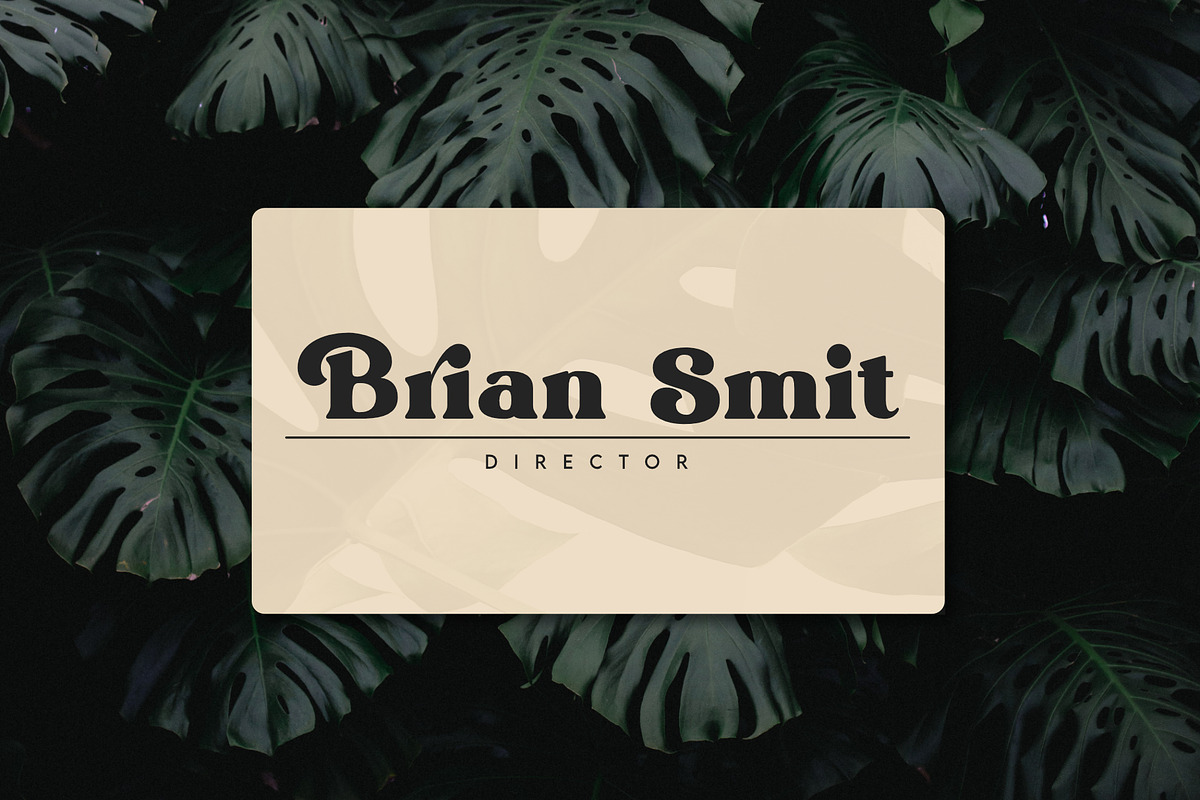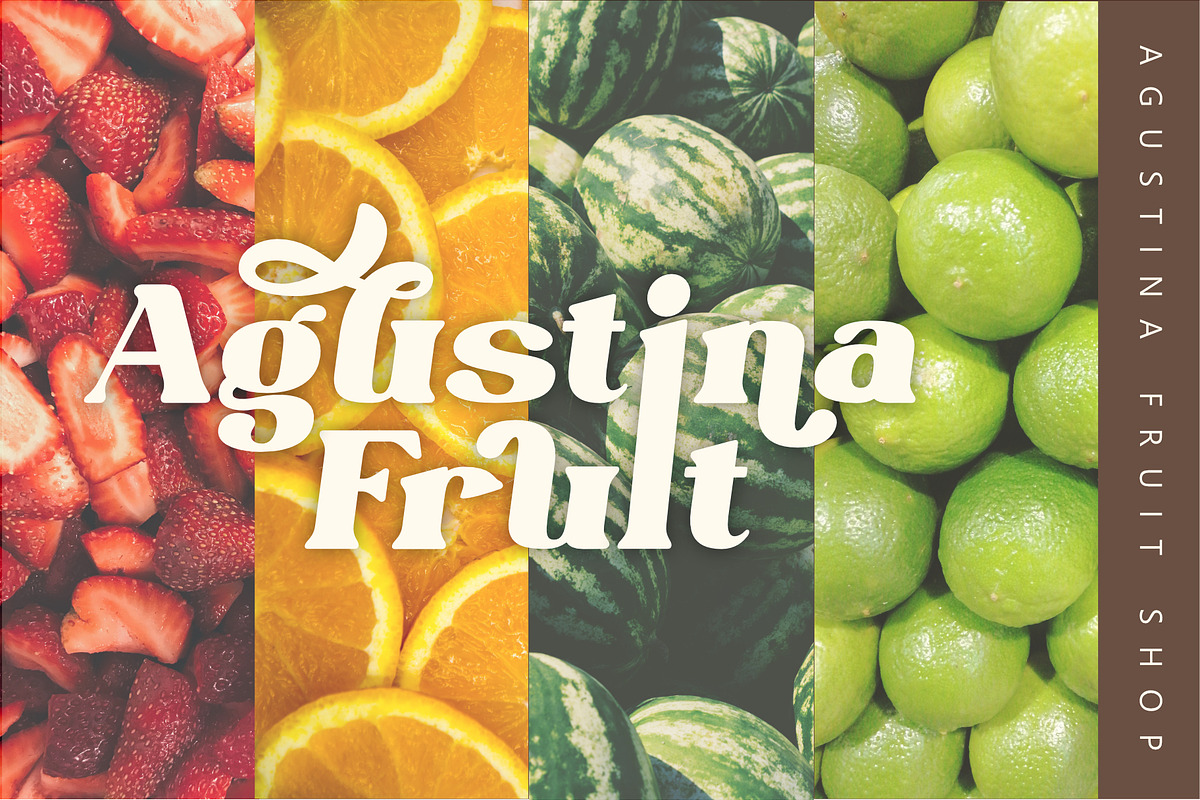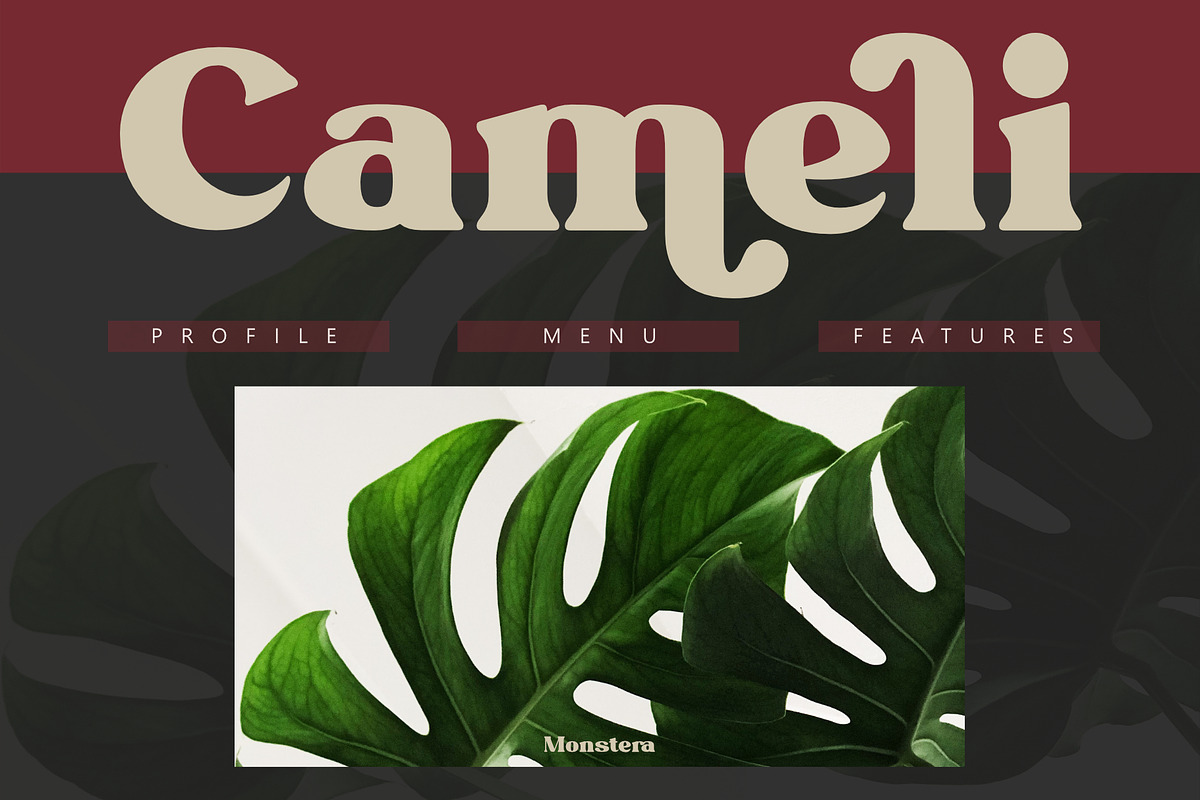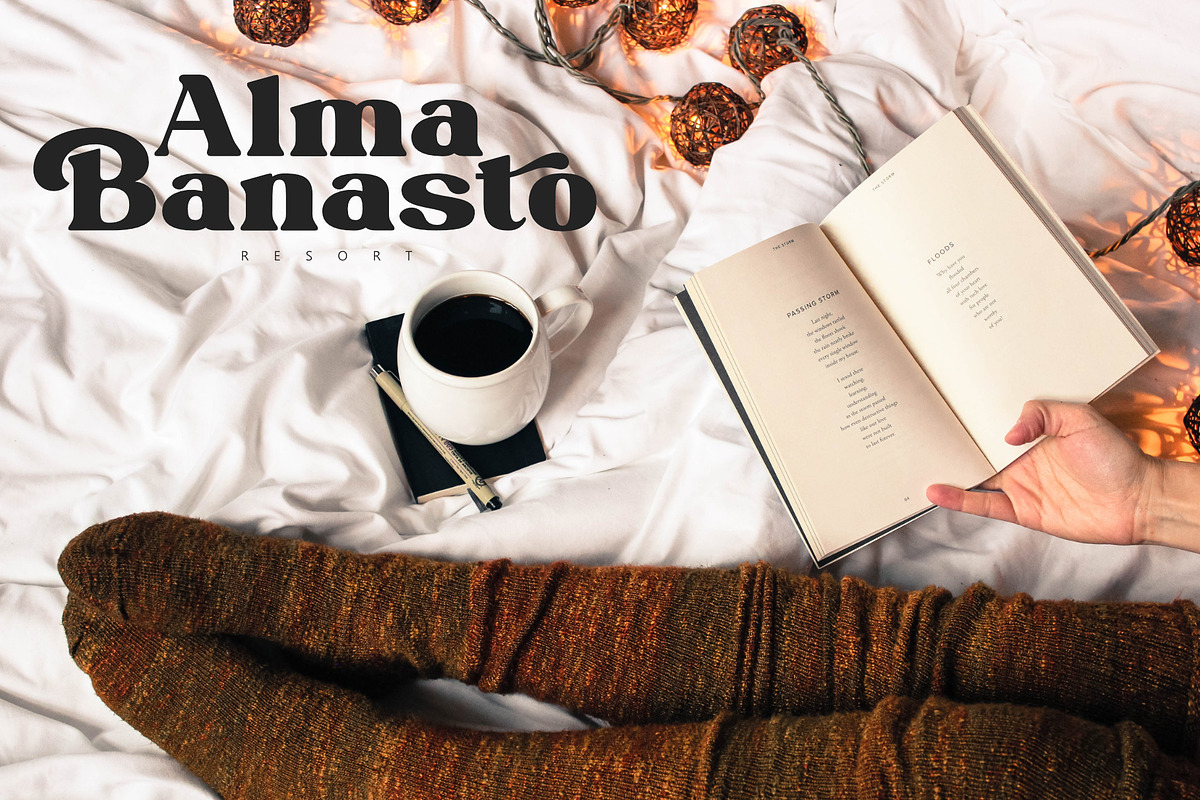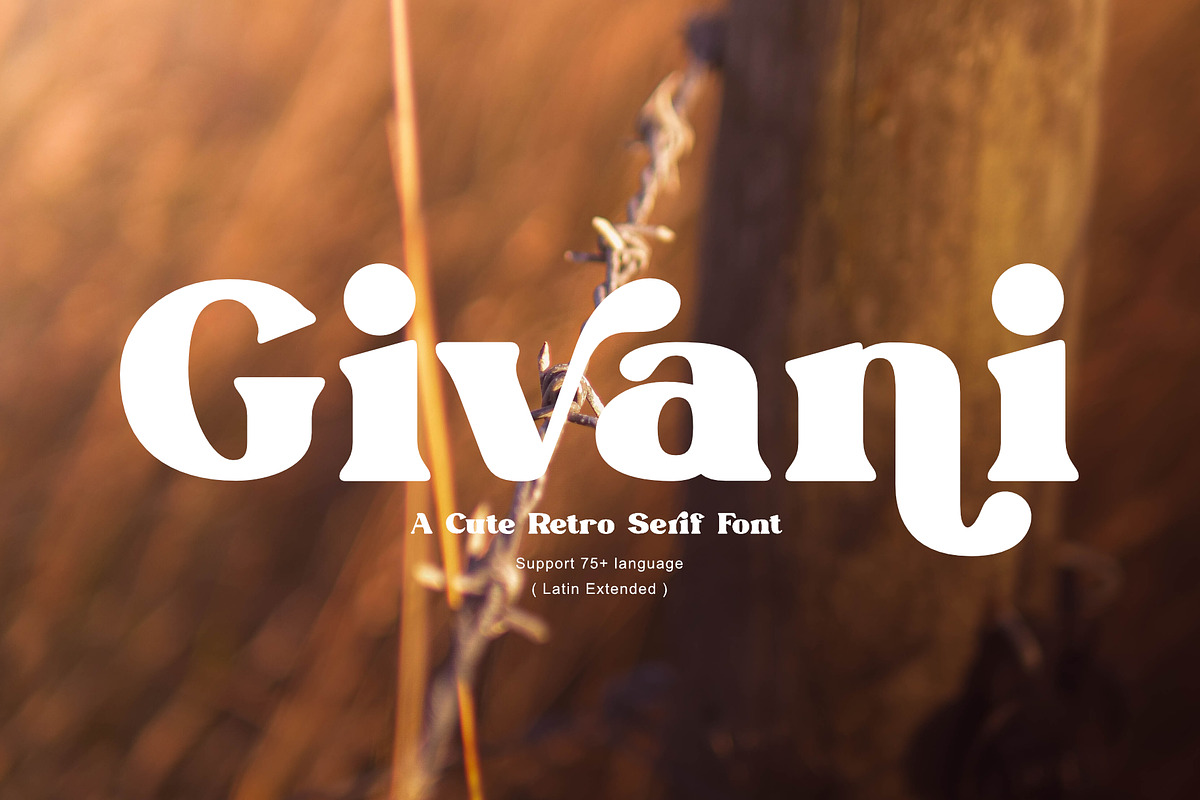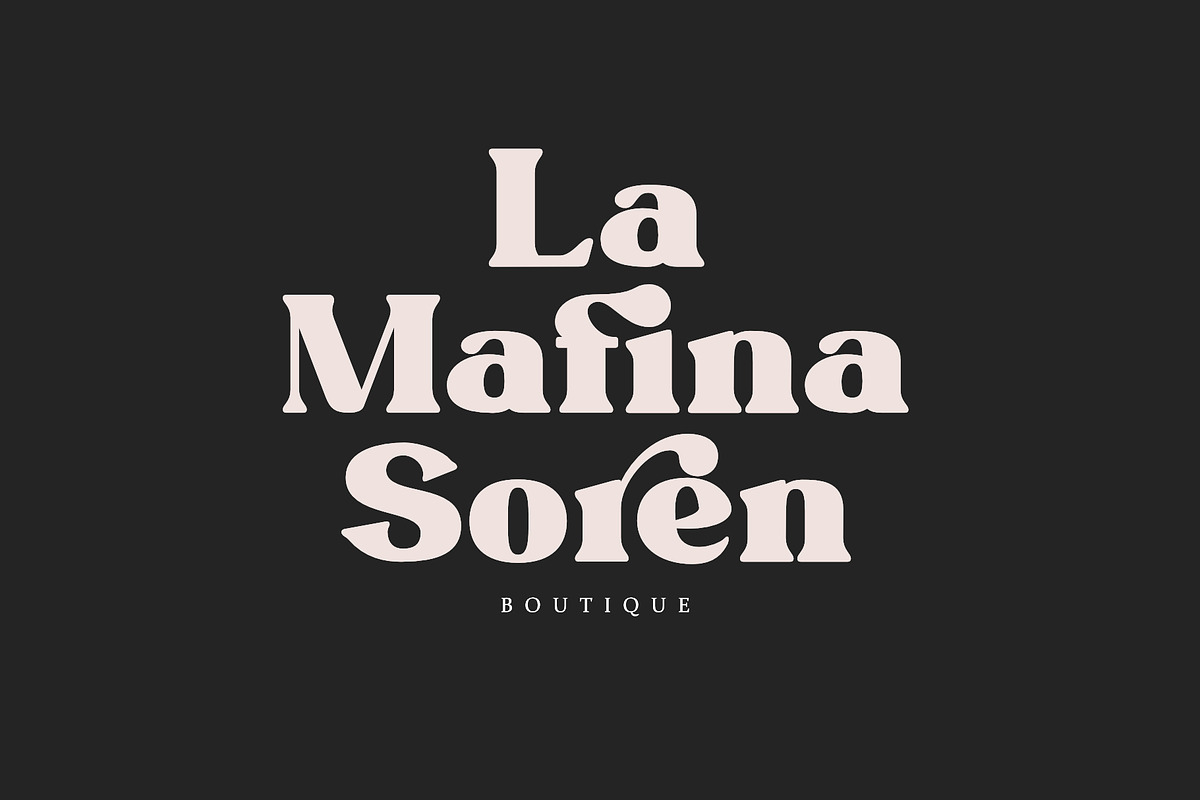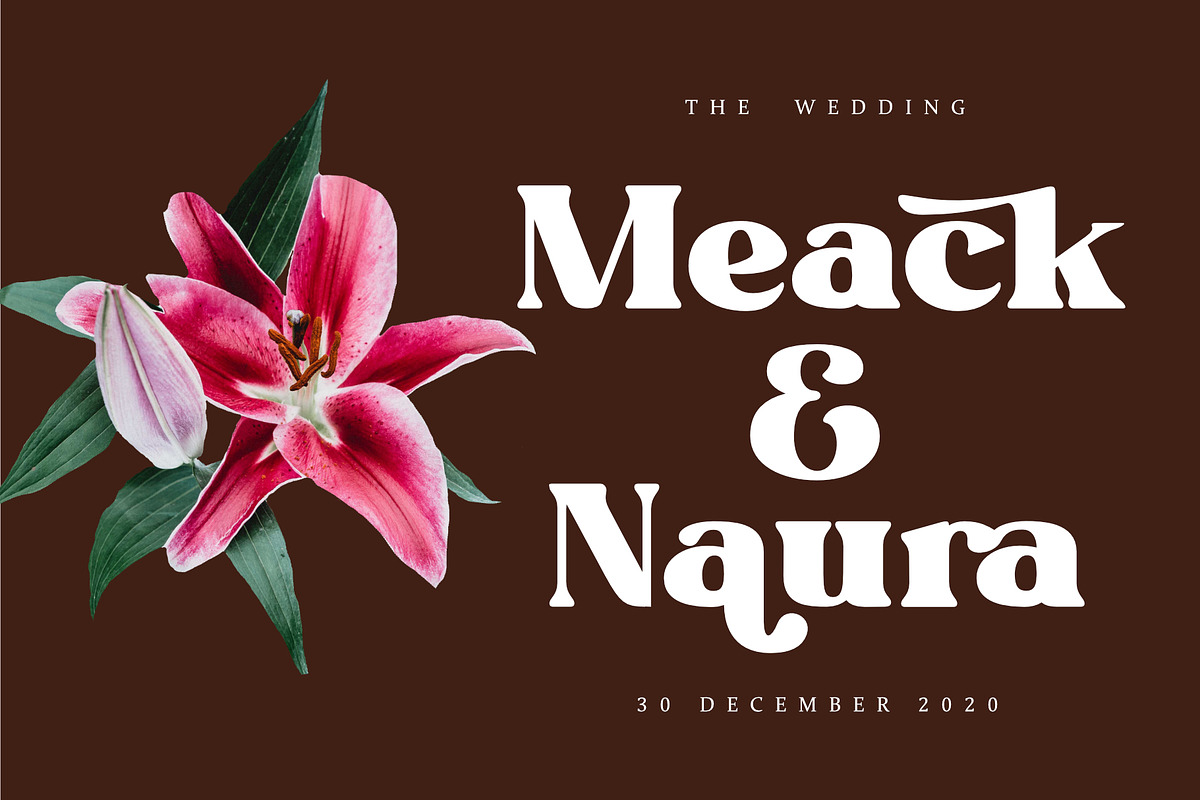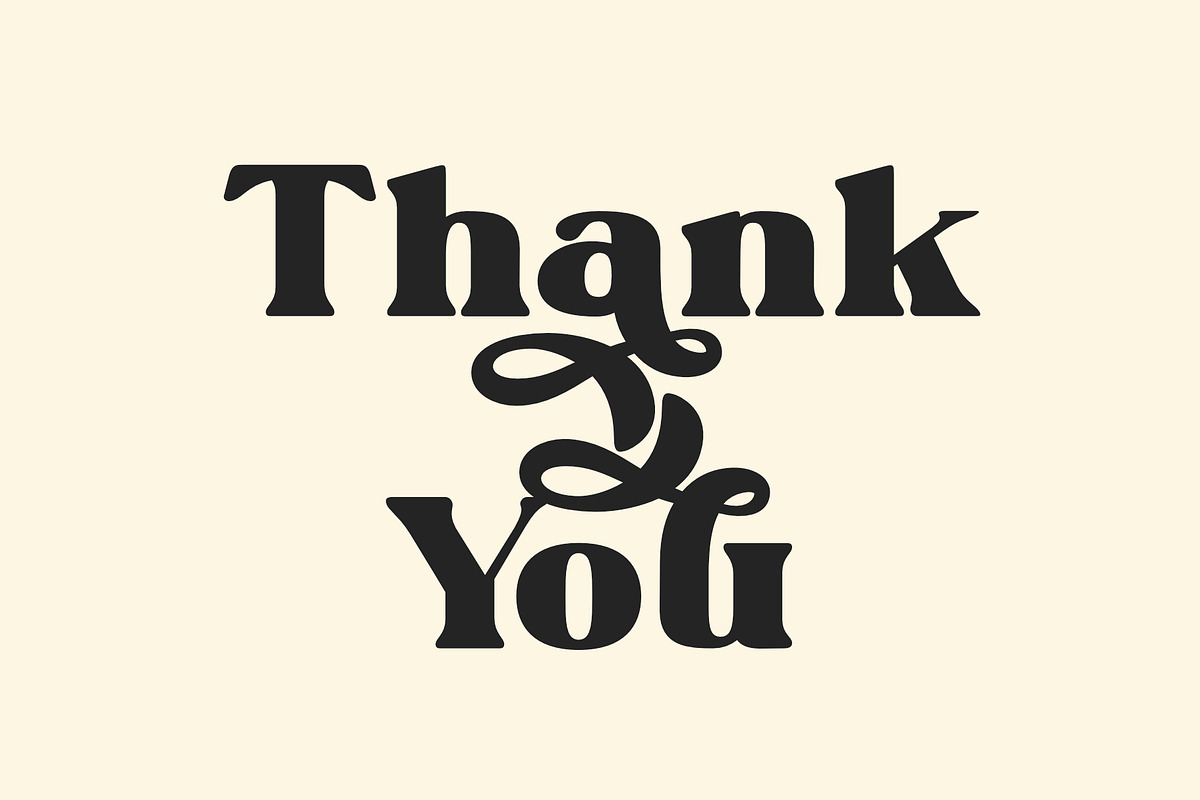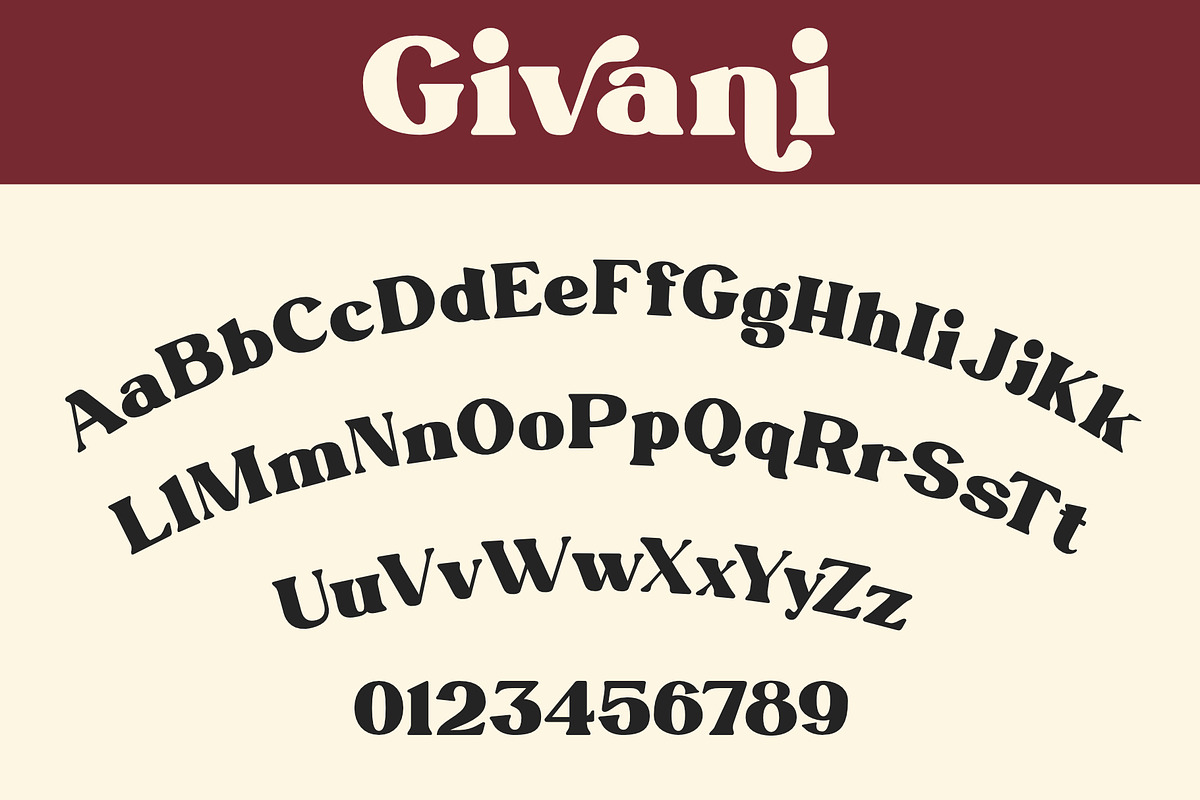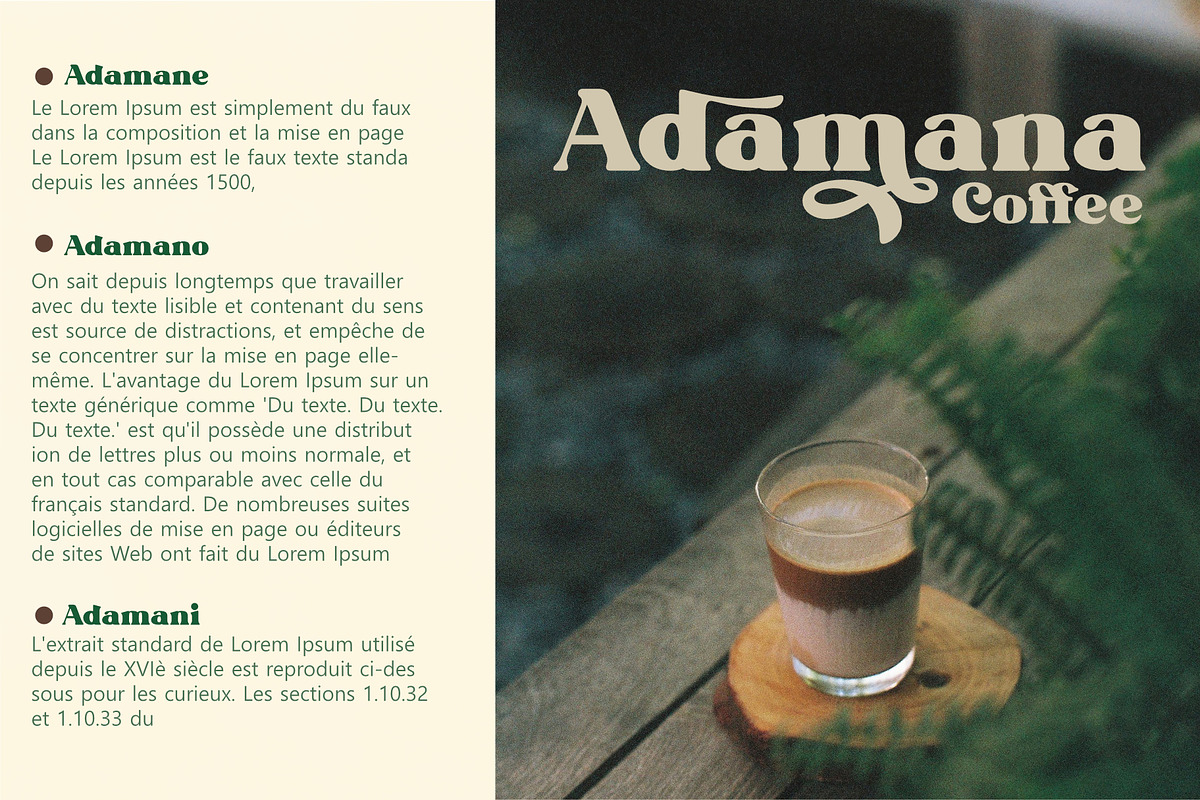
Givani - A cute retro serif
Introducing, Givani, a font with a retro look but cute impression making this font unique with a consistent thickness, making memories of the 70s era, this font has an interesting alternative as well as several ligatures to complement it. This font is perfect for creating logos, invitations, novels, books, magazines, labels, greeting / wedding cards. So what are you waiting for!
- Uppercase Characters
- Lowercase Characters
- Support 75+ Language